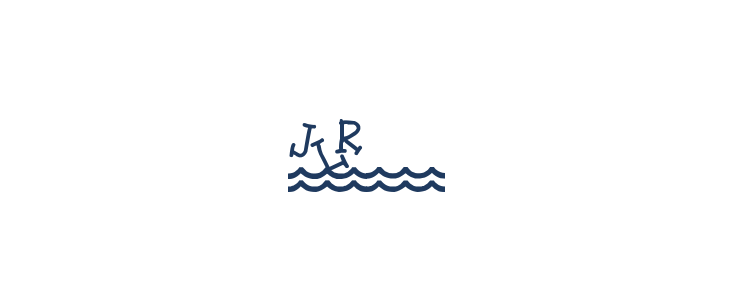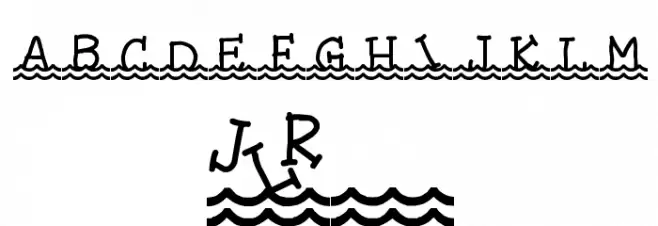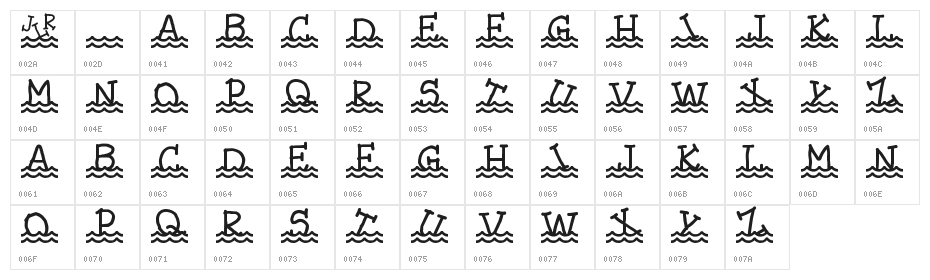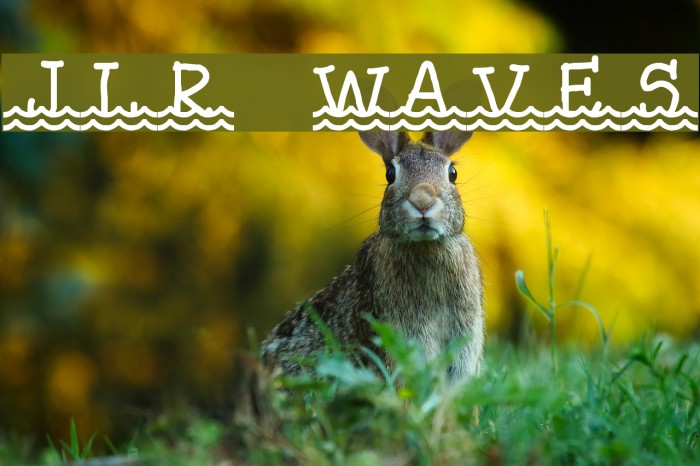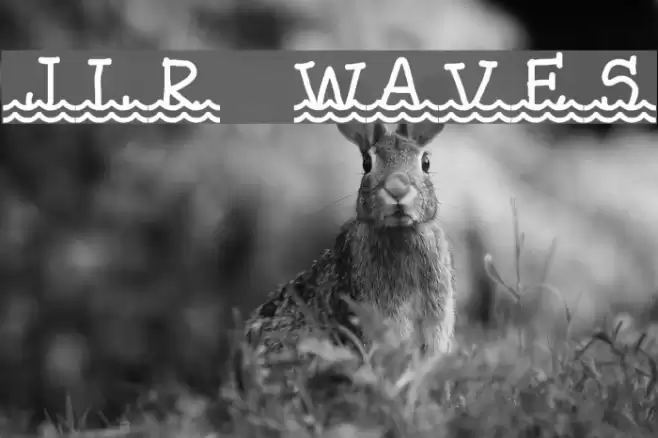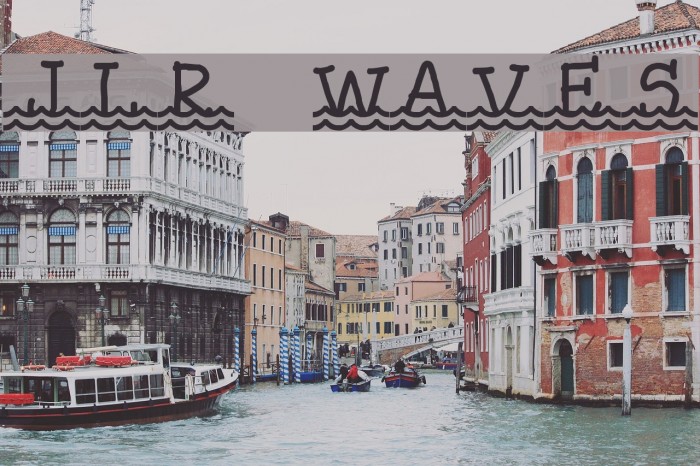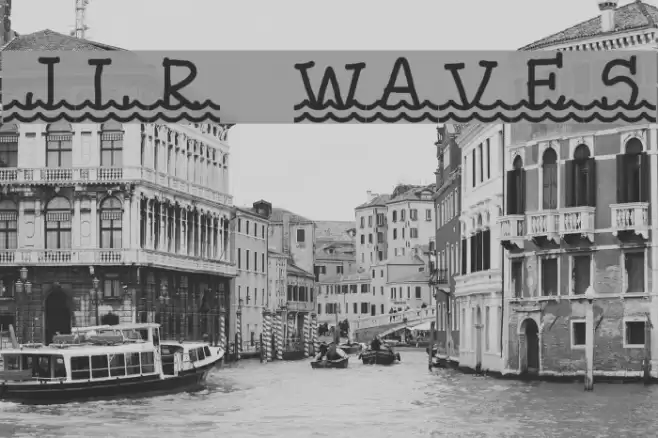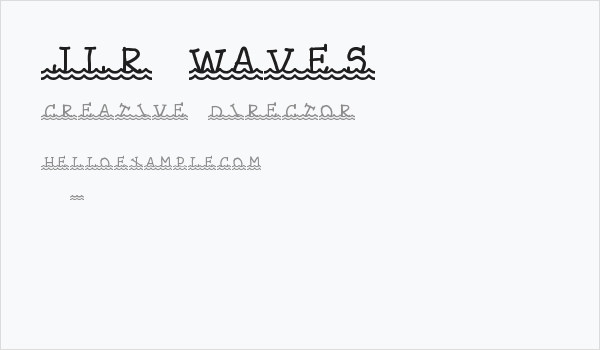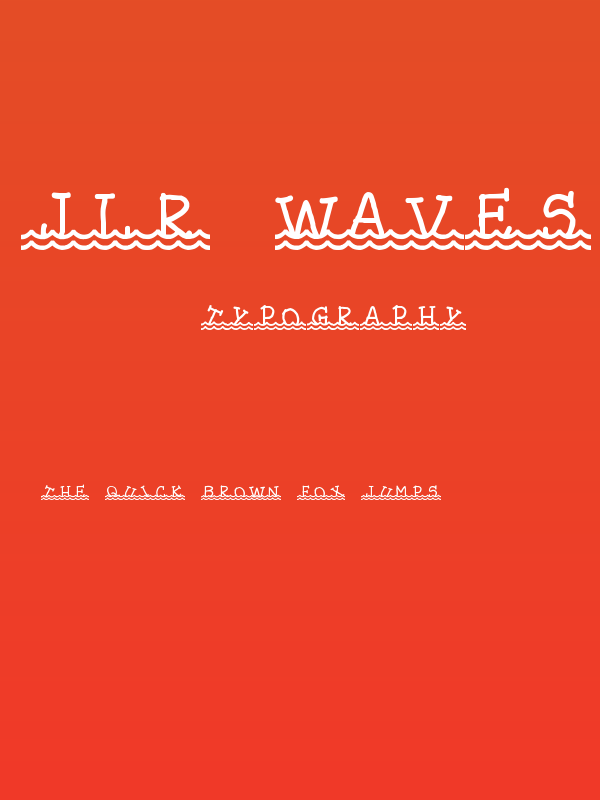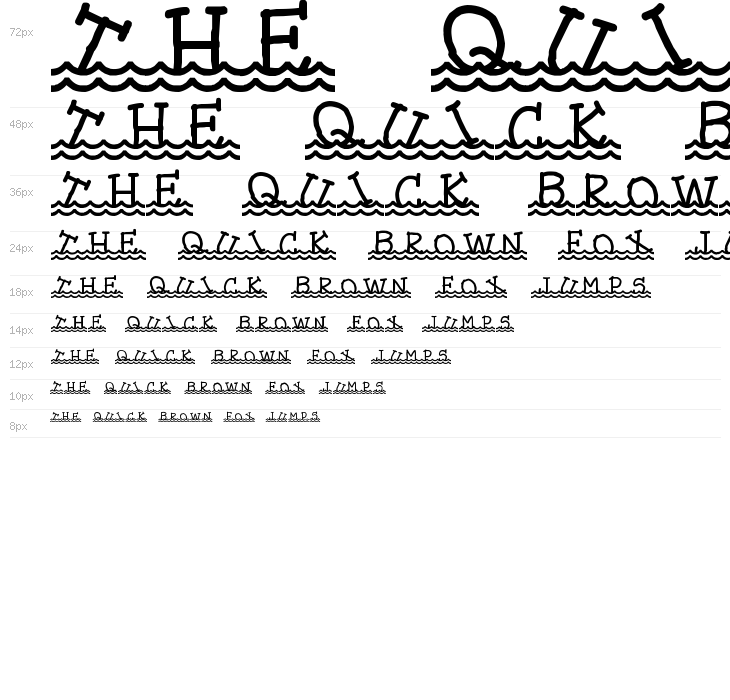
JLR Waves Font
JLR Waves Description
This font features a unique and playful design where each character is perched atop a stylized wave pattern. The letters are bold and slightly angular, giving them a modern yet whimsical appearance. The wave motif adds a dynamic and fluid element, making the font stand out for creative and thematic projects. The uppercase letters are consistent in height and style, maintaining a uniform look across the alphabet. This font is particularly suitable for projects that require a nautical or beach-themed aesthetic, as the wave design is prominently integrated into each character. The overall style is decorative, making it ideal for headlines, logos, or any design needing a touch of creativity and fun.
Proposed ProjectsIdeal for beach-themed posters, children's book covers, playful branding, and event invitations.